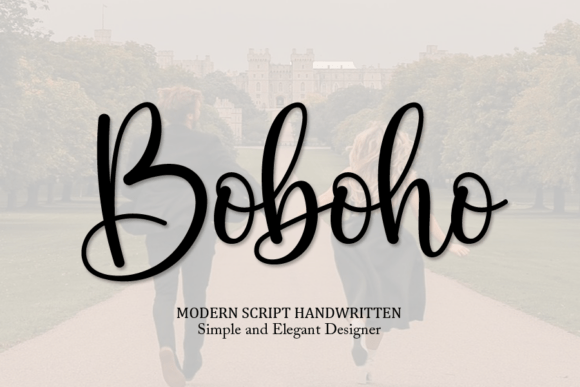
The Boboho Font: A Timeless Classic for Creative Projects
An Honest Review of Boboho Font
The Boboho font is a simple yet elegant handwritten script that exudes a sense of classic charm. Here are some things I love about it:
- ✨ Unique and distinctive style: Boboho has a one-of-a-kind look that sets it apart from other fonts.
- ✅ Highly versatile: It can be used for a wide range of projects, from logotypes and headlines to posters and social media graphics.
- ✅ Easy to read: Despite its handwritten nature, Boboho is surprisingly legible, even at smaller font sizes.
Of course, no font is perfect, and Boboho has a few quirks:
- 🤔 Limited formal variations: Boboho has a distinct informal feel, which may not be suitable for very formal or corporate projects.
- ⚠️ Some letters may require manual kerning: As with any handwritten font, some letters may need manual kerning to achieve optimal spacing.
The Story Behind Boboho Font
The Boboho font was created by a talented designer who wanted to craft a unique, handwritten script that would evoke a sense of classic charm. Inspired by vintage typography and handwritten letters, the designer carefully crafted each letterform to ensure that the font would be both elegant and legible. The result is a timeless font that’s perfect for a wide range of creative projects.
| What type of projects is Boboho suitable for? | Boboho is a versatile font that’s suitable for a wide range of projects, including logotypes, headlines, posters, social media graphics, and more. |